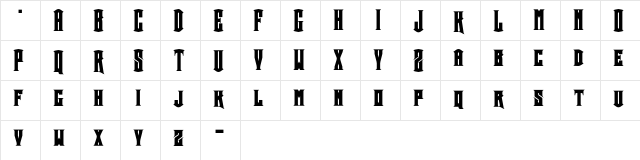
Crown Title Font Preview
Crown Title
Crown Title Font Details
| Style | Title |
Design Context for Crown Typeface
Crown is a composed and adaptable typeface that performs quietly and consistently across a wide range of design contexts.